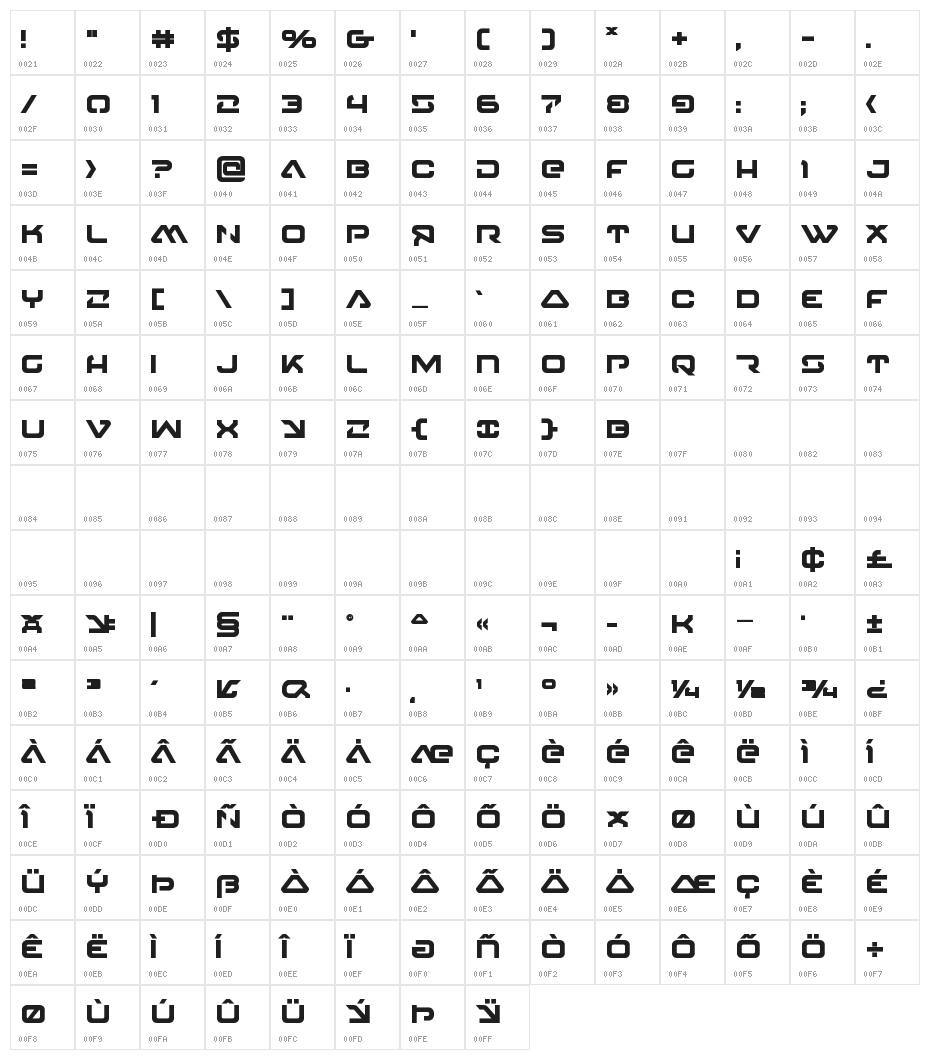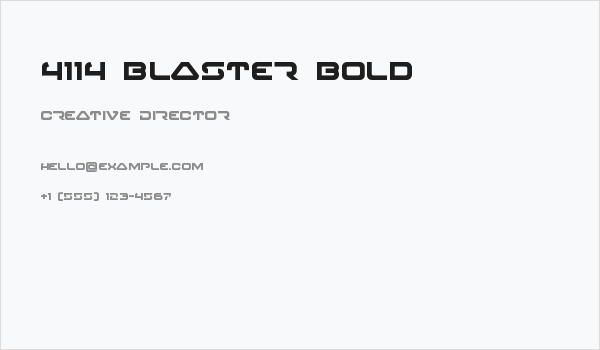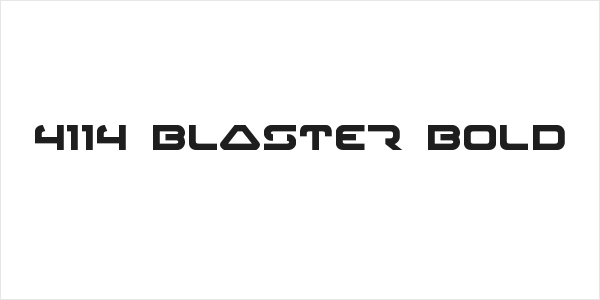
4114 Blaster Bold Font
4114 Blaster Bold Description
This font features a bold and futuristic design with geometric shapes and sharp angles. The characters are wide and have a strong presence, making them ideal for attention-grabbing headlines. The uppercase and lowercase letters maintain a consistent style, with unique cutouts and angular forms that add a modern, tech-inspired feel. The numerals and special characters follow the same design principles, ensuring a cohesive look across all text elements. The font's boldness and distinct style make it suitable for projects that require a strong visual impact.
| Proposed Projects | Ideal for sci-fi themed designs, tech branding, video game titles, and futuristic posters. |